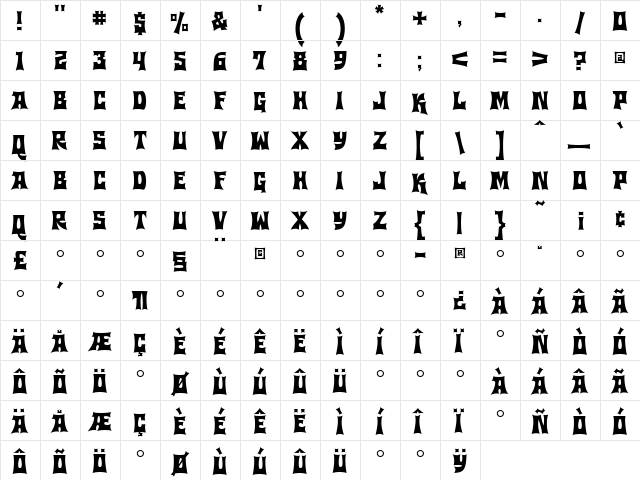
Machohouse Medium
Design Context for Machohouse Typeface
Machohouse is a composed and adaptable typeface that performs quietly and consistently across a wide range of design contexts.